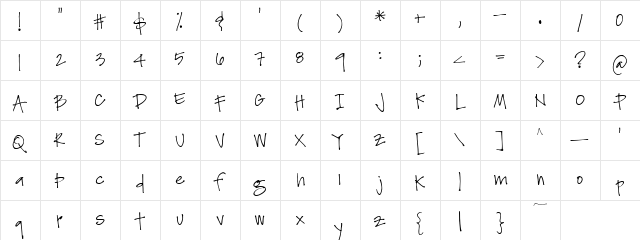
CK Marissa Medium
Design Context for CK Marissa Typeface
CK Marissa is a composed and adaptable typeface that performs quietly and consistently across a wide range of design contexts.